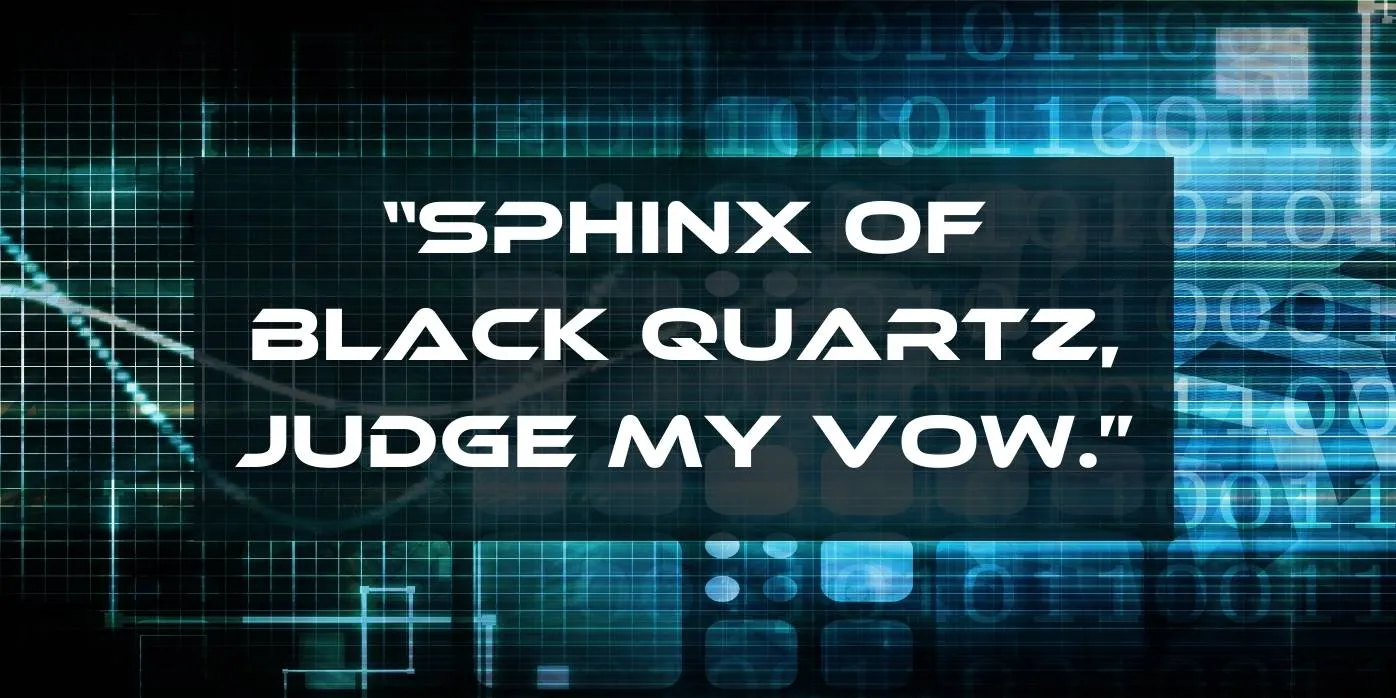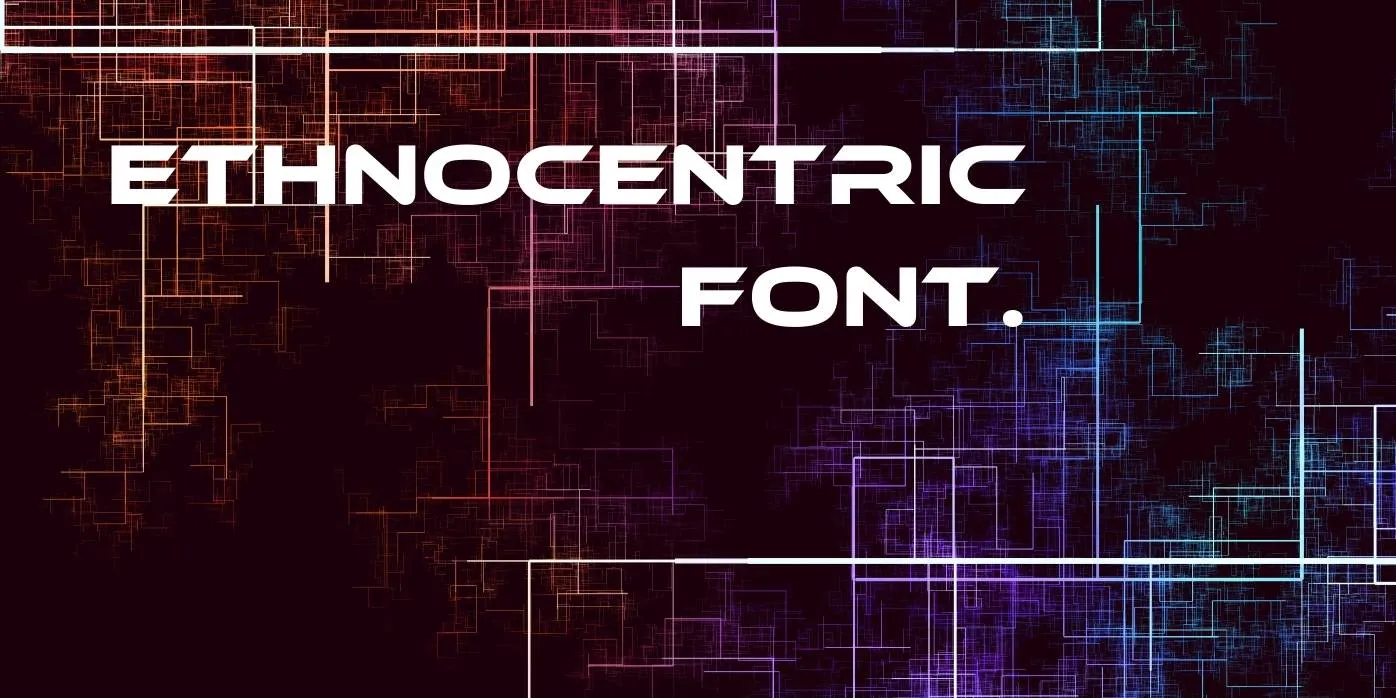
Ethnocentric Font
The Ethnocentric font was designed and published by Ray Larabie. This classy typeface belongs to the Display font family. This classy font was designed to be a non-offensive typeface. It can be used for displaying foreign words in a clean and simple way, so it is perfect for web design or publishing an e-book.
You can easily use this font for Adobe Illustrator. You will use its alternative font which is Freshman Font. This marvelous font has a width of 13 units and a height of 16 units within the pixels. It is very famous because of its decorative and attractive design.
The uppercase and lowercase characters displayed in this font are completely different from each other. In addition, this classy font usually comes with a lot of complementing designs that can increase its performance as a whole. For many of your interesting Graphics designs, you must use the online tool generator of this font.